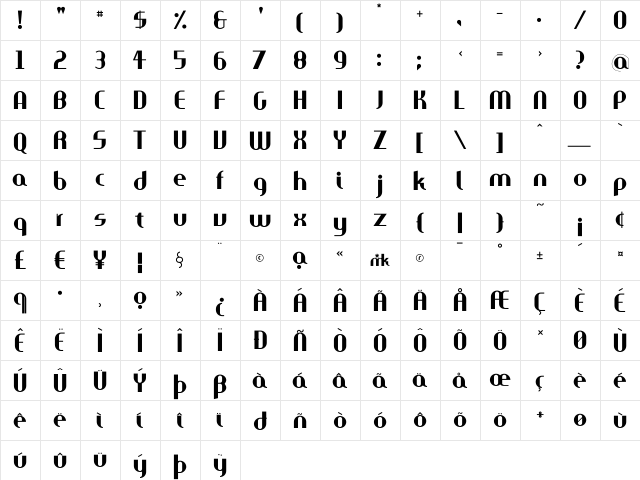
Aparta Regular
Design Context for Aparta Typeface
Aparta offers clean, dependable letterforms without strong stylistic allegiance, making it a practical choice for designers who need flexibility.